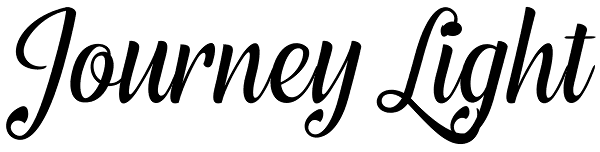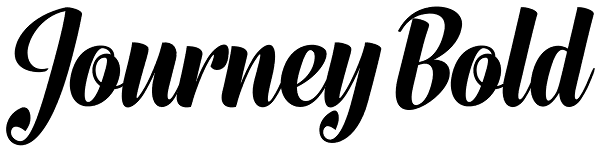
Journey
Journey is a smooth and elegant vintage script family of four weights and a matching ornament set. Journey is packed with Alternate characters that let you easily create headlines, logos & posters with a custom-made feeling. Journey has a minimum...